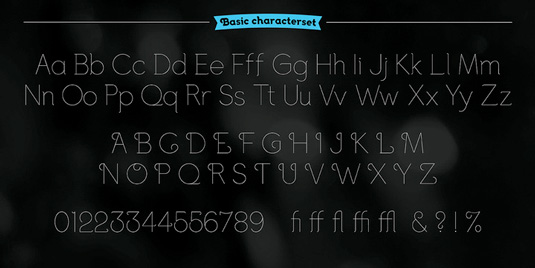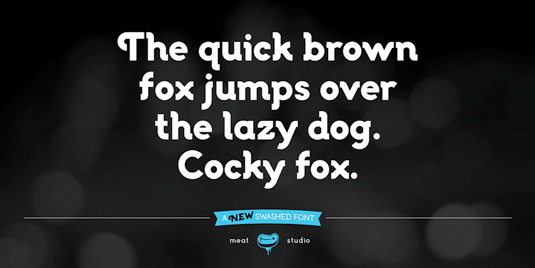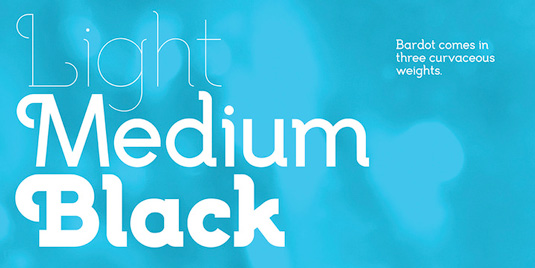
Font of the day: Bardot
Bardot by Stew Deane
Today's font of choice, Bardot, was created by type designer Stew Deane. Available from MyFonts, the typeface is described as "working best as a display font at large sizes but is equally adept to paragraphs of text or small pull quotes. Graceful, curvaceous and attention seeking, Bardot offers elegance and charm in abundance."